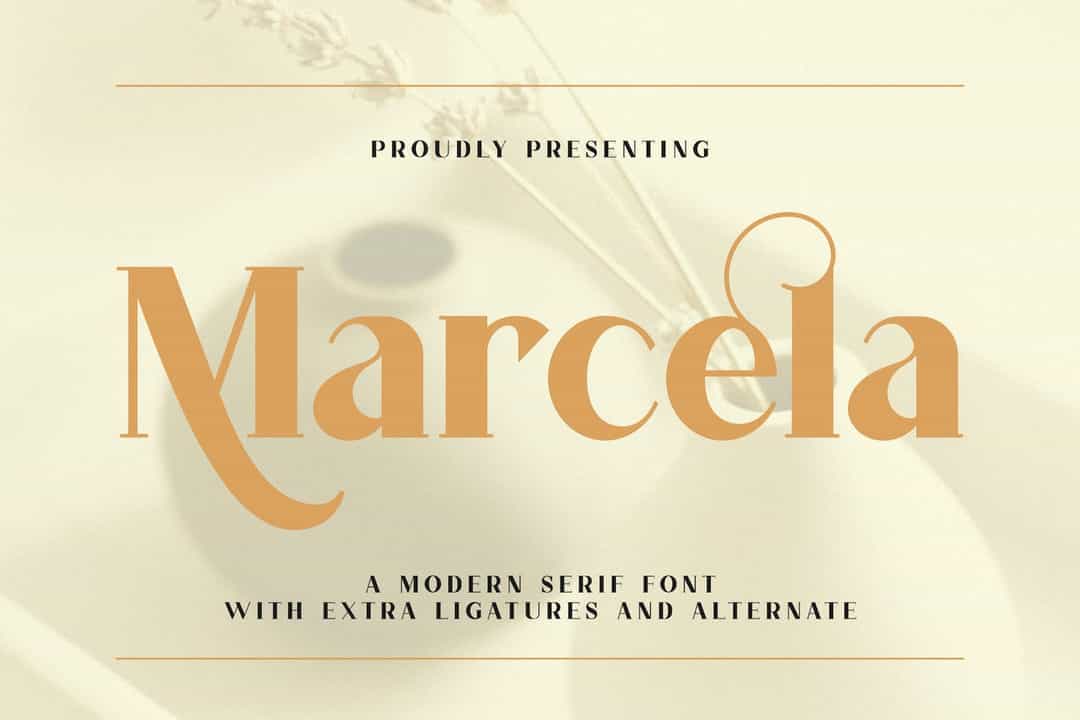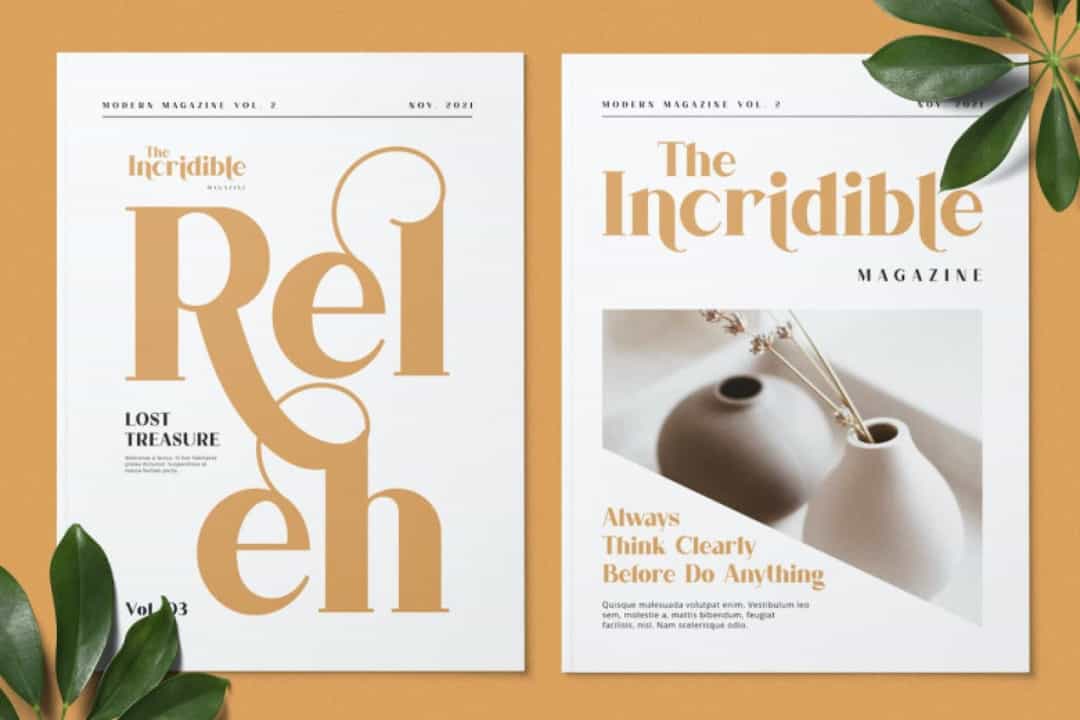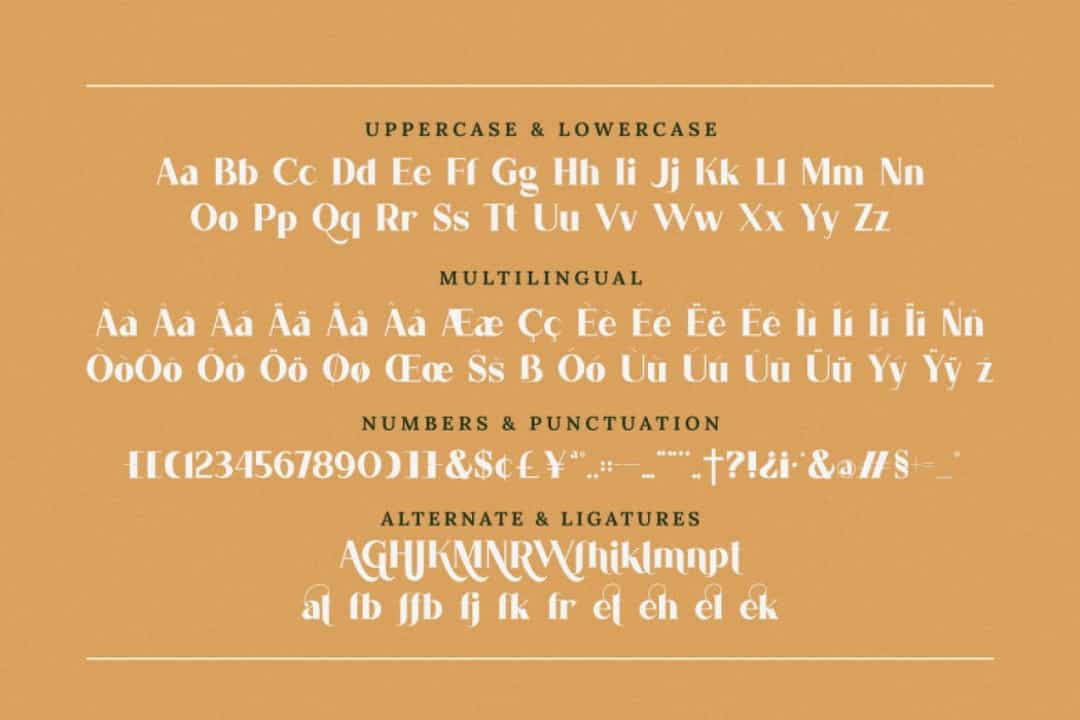
Marcela Serif font is perfect for many designs, including logos and branding as well as photography invitations, watermarks advertisement product designs stationery wedding themes labels packaging of products as well as special occasions etc.